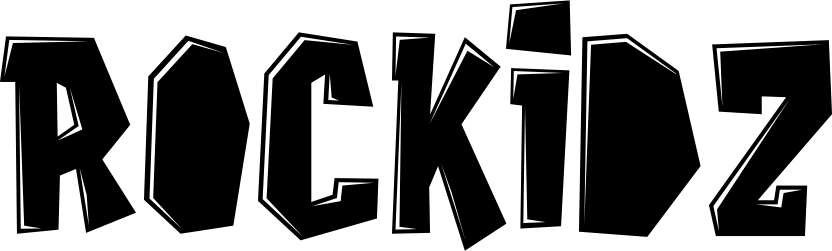
Rockidz Font
You’re going to appreciate accepting this neat cartoon font for your unimaginable typography, as it looks fun and exciting plus it will add a playful feel to your design! Rockidz has bold and solid characters that have a retro style as well as a bizarre look.
The enjoyable letterforms that are included in this 90s cartoon font, are uppercase letters, numbers, and symbols without any lowercase letters involved. It’s appropriate for all cartoons, comics, books, games, and movies or clothing.